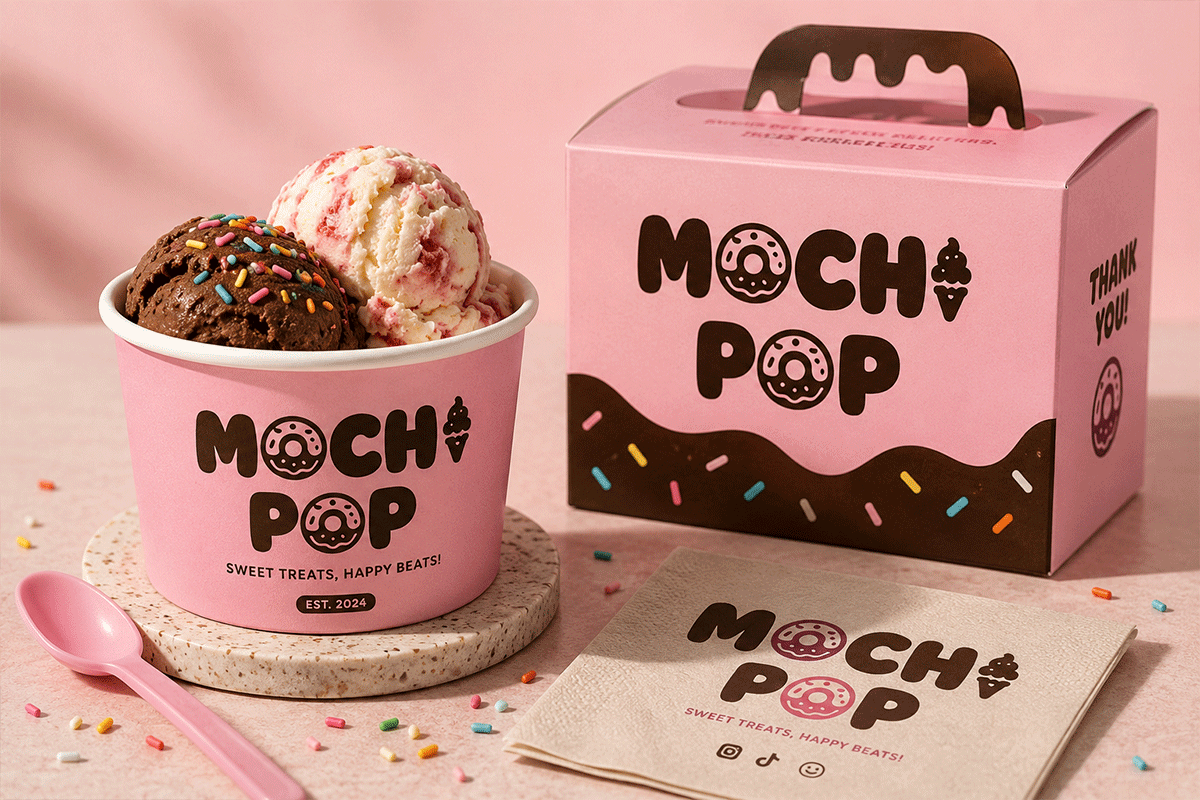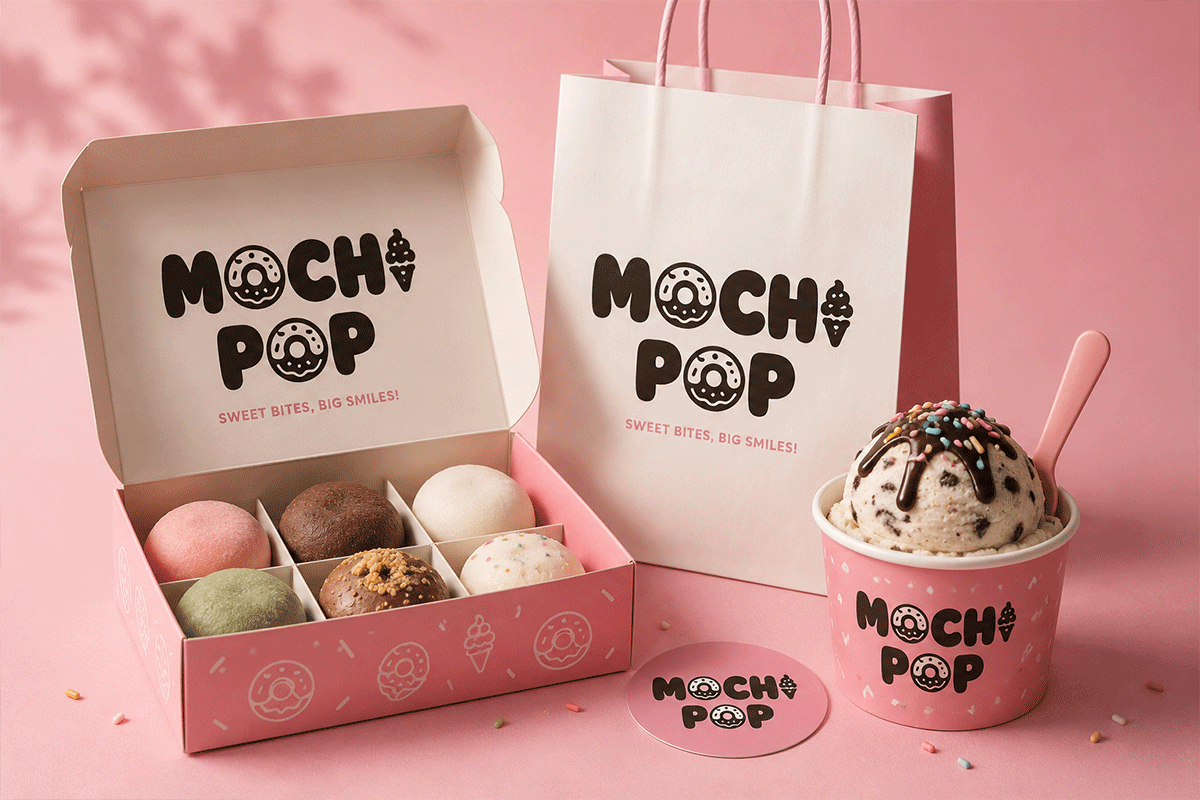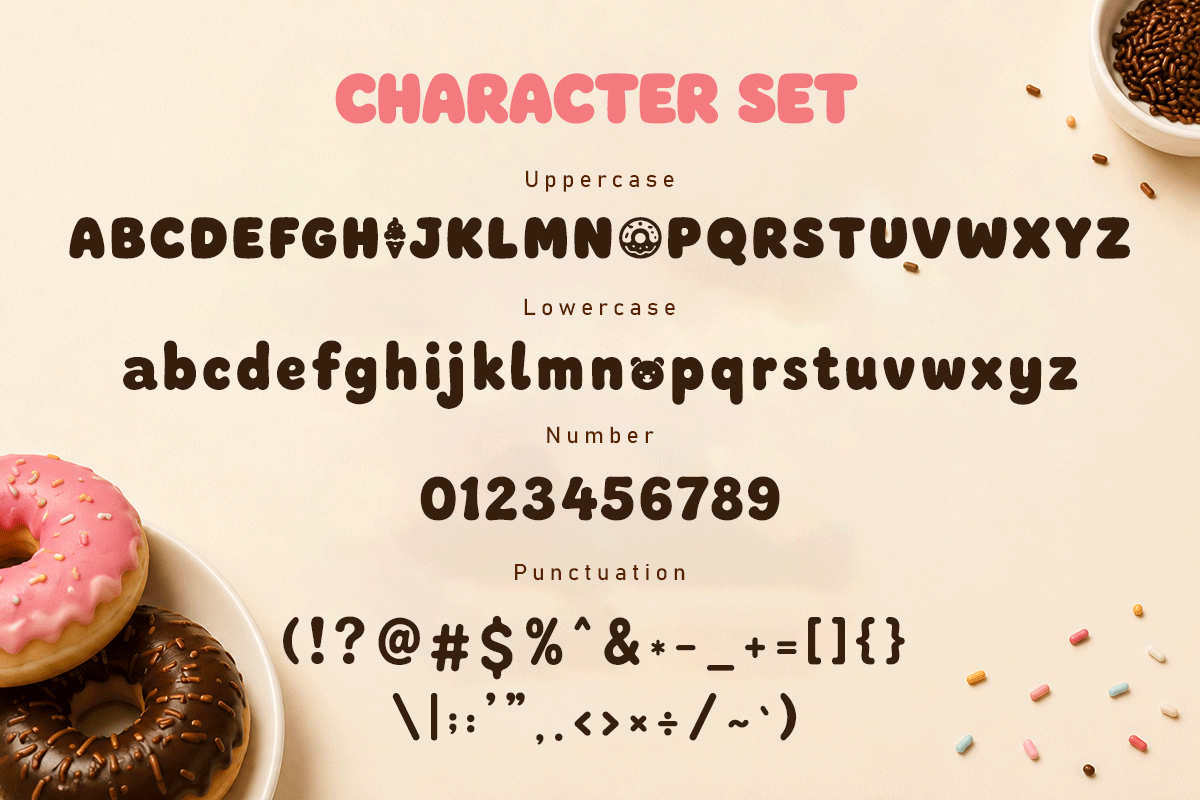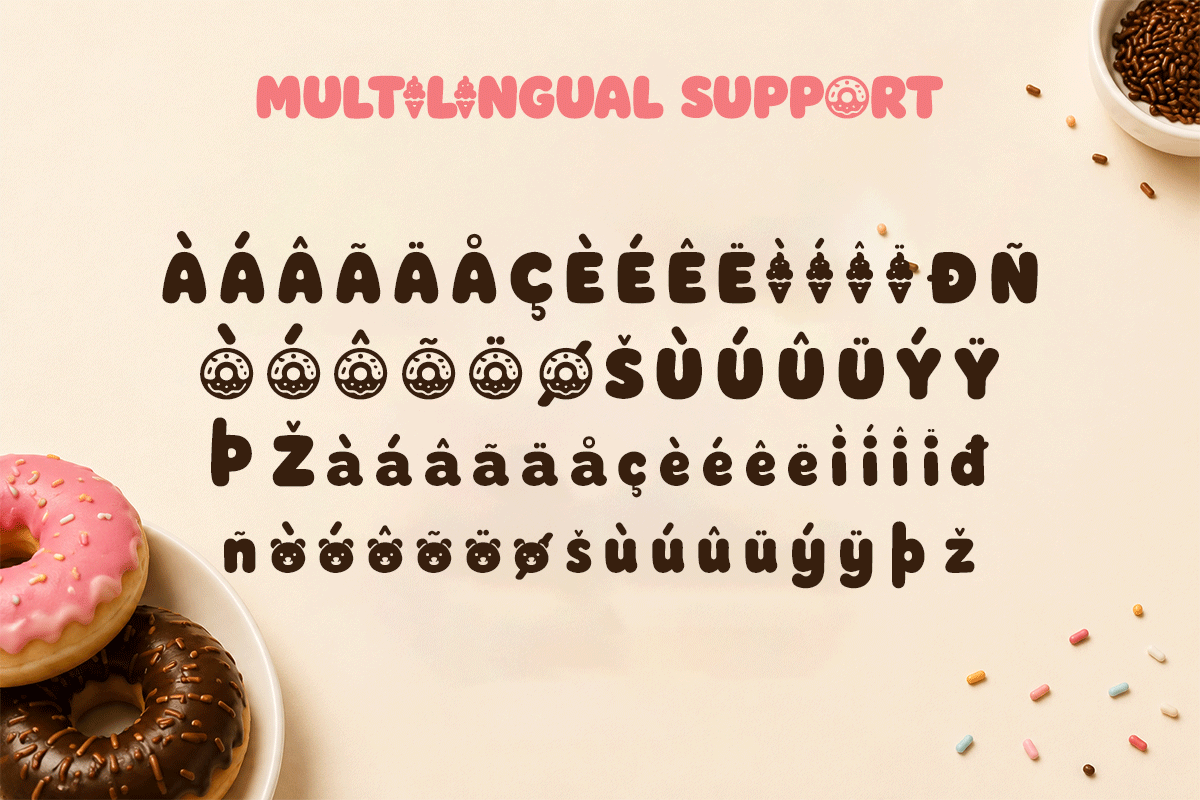
Mochi Pop A Modern Playful Display Font is a fun and playful display font featuring thick rounded letterforms, soft curves, and an adorable dessert-inspired personality. Its bold shapes create a friendly and eye-catching appearance that instantly adds sweetness and charm to any design.
Inspired by donuts, ice cream, mochi, candy, bakeries, and colorful snack packaging, Mochi Pop A Modern Playful Display Font is perfect for food branding, bakery logos, dessert packaging, café menus, children’s products, posters, stickers, product labels, social media graphics, T-shirts, greeting cards, and playful advertisements.
Its chunky construction makes it especially effective for headlines, logos, and short display text where you want the typography to feel warm, cute, and memorable. Pair it with colorful illustrations, pastel palettes, or fun food graphics for an even more delightful result.
Mochi Pop A Modern Playful Display Font is a great choice for creative projects that need a cute, sweet, bubbly, youthful, and joyful visual identity.